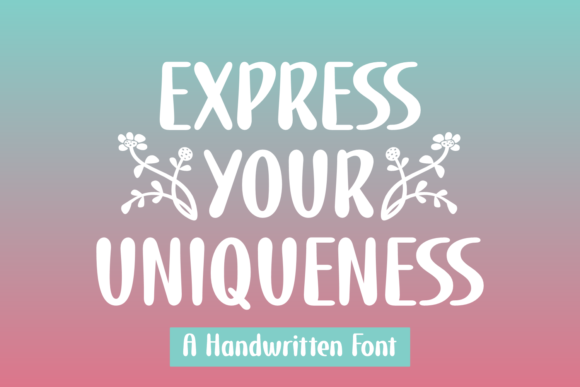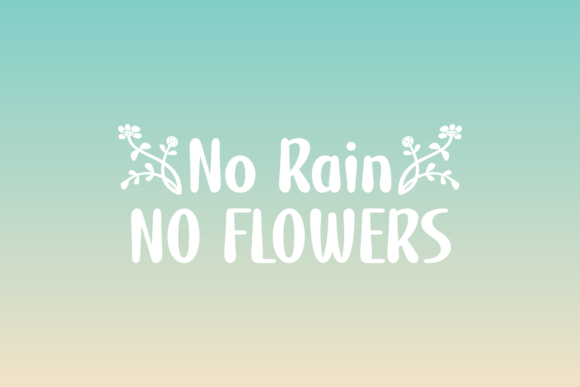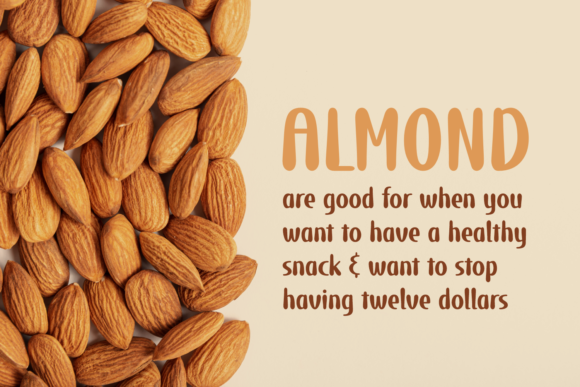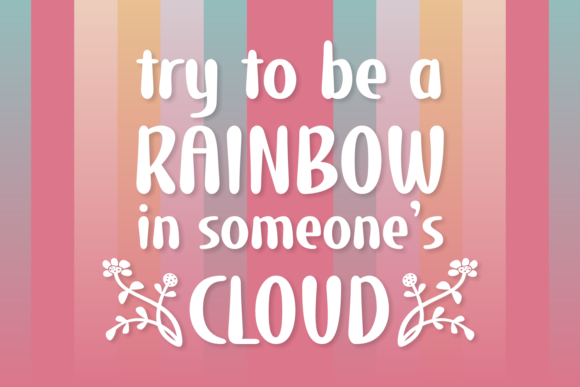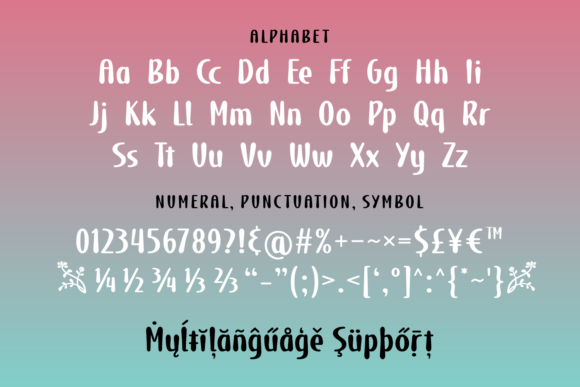
Express Your Uniqueness Font
“Express Your Uniqueness” is a gorgeous handwritten font crafted especially for your creative designs and projects. This versatile typeface allows you to create captivating quotes, eye-catching posters, stylish art prints, trendy t-shirts, distinctive branding, logos, and anything else your creative mind desires.
The font’s handwritten style adds a personal and authentic touch to your text, making it suitable for a wide range of applications. Whether you’re working on expressive quotes or building a brand identity, “Express Your Uniqueness” stands out as a valuable tool for infusing creativity and individuality into your designs.
The versatility of this font extends to various design contexts, making it adaptable for both digital and print applications. Whether you’re expressing your thoughts through social media graphics or designing tangible products like art prints and t-shirts, “Express Your Uniqueness” provides the flexibility to suit your creative needs.
As you explore the possibilities with “Express Your Uniqueness,” you’ll find that its gorgeous design enhances the visual appeal of your projects. Let this font be the vehicle through which you convey your creative vision, allowing each piece to radiate with uniqueness and authenticity.
In summary, “Express Your Uniqueness” is more than just a font; it’s a versatile and gorgeous handwritten typeface that empowers you to bring your creative ideas to life. Whether used for quotes, posters, art prints, or branding, let “Express Your Uniqueness” be the font that elevates your designs, allowing your creativity to shine in every project.